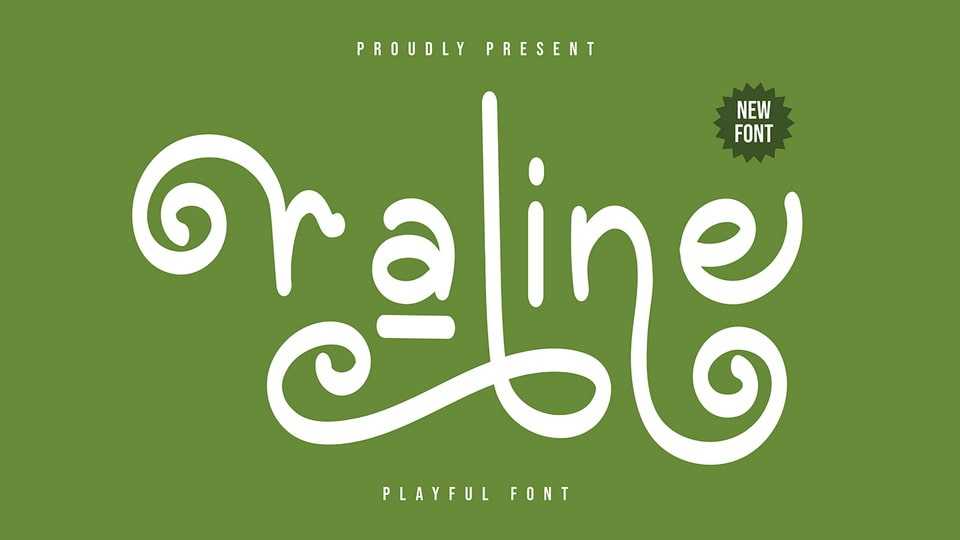
Raline Font › Fontesk – Download Grátis
Download Raline font, a playful handwritten typeface that dances with curls and swirls, infusing each letter with a whimsical and lighthearted charm. Raline is crafted to bring a touch of joy to your designs, making it perfect for projects that demand a playful and expressive vibe.
Designer: Hilman Ruslan